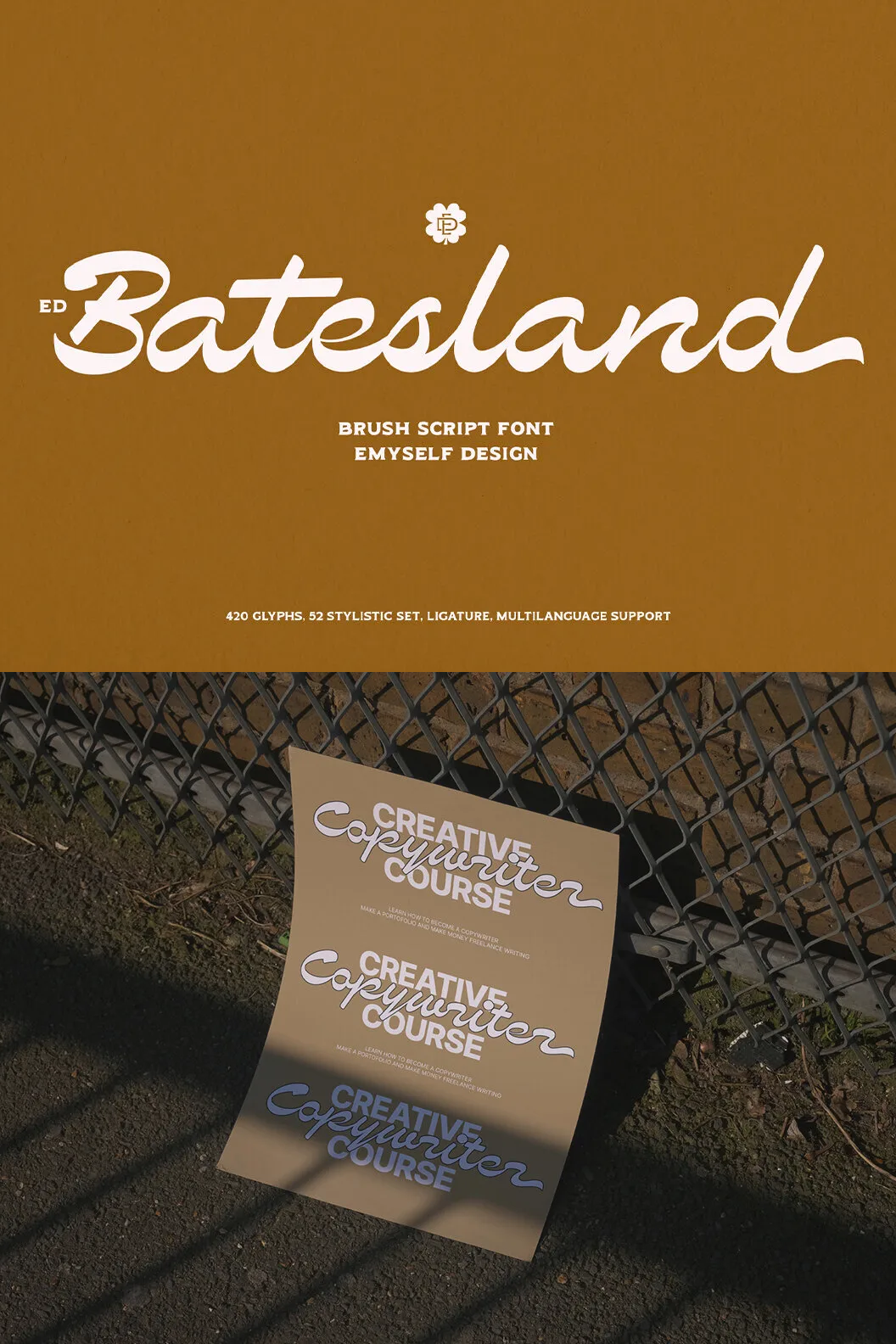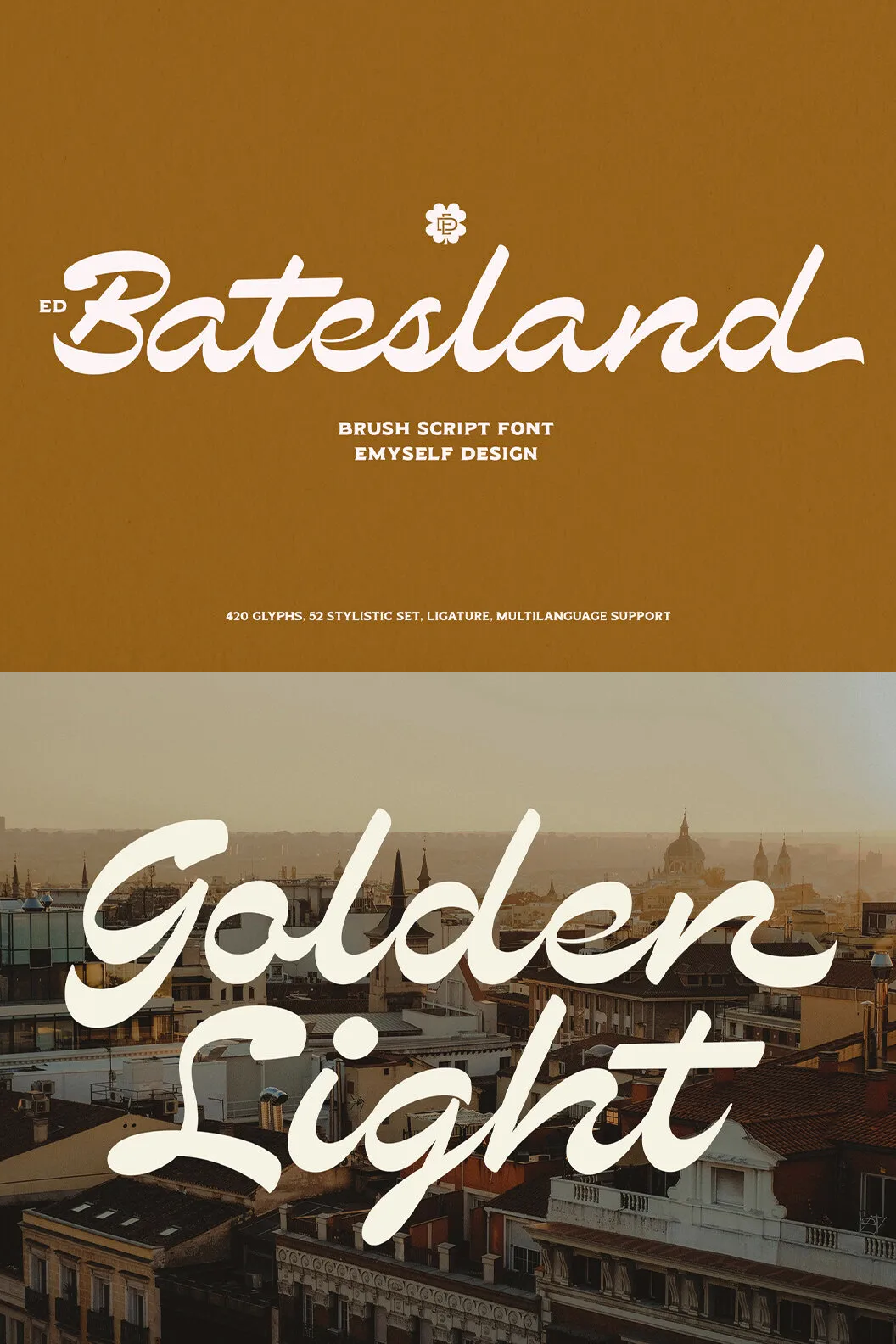
ED Batesland FonttypesiteJanuary 31, 2024Display Unleash your creativity with ED Batesland, a classic brush script font.Perfect for logos, invitations, and more. SKU T21916 Download Here